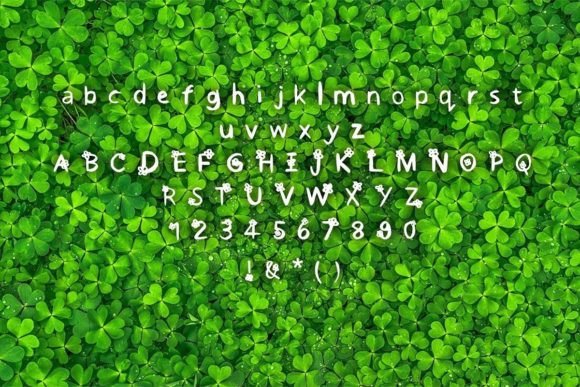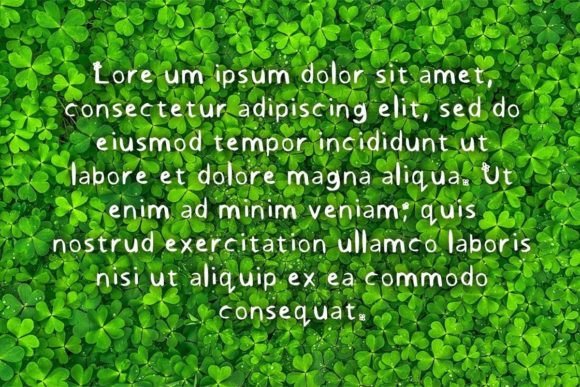
About My Clover Font
“My Clover” is a delightful and charming doodle handwritten font that exudes sweetness and cuteness. Tailored for projects requiring a playful or childish touch, this font adds a whimsical flair to a variety of creative endeavors. Inspired by the imagery of a 4-leaf clover and the spontaneous doodles of children, “My Clover” is perfect for applications ranging from postcards to apparel and beyond.
The playful nature of “My Clover” makes it an ideal choice for projects aimed at capturing a lighthearted and carefree vibe. The doodle-inspired letterforms bring an element of fun and spontaneity, making it well-suited for designs that resonate with a youthful and playful audience.
Whether used on postcards, apparel, or other applications, “My Clover” injects a sense of charm and innocence. The font’s whimsical style adds a touch of personality, making it suitable for a wide range of creative expressions.
The inspiration drawn from a 4-leaf clover infuses “My Clover” with positive and lucky connotations. This makes it a particularly fitting choice for projects that evoke feelings of joy, good fortune, and childlike wonder.
In summary, “My Clover” is more than just a font; it’s a creative asset designed to bring a sweet and cute doodle aesthetic to your projects. Whether you’re working on playful postcards or designing adorable apparel, “My Clover” is the font that transforms your designs into charming expressions of creativity and joy. Let “My Clover” be the whimsical and delightful handwritten font that adds a playful touch to all your creative endeavors.